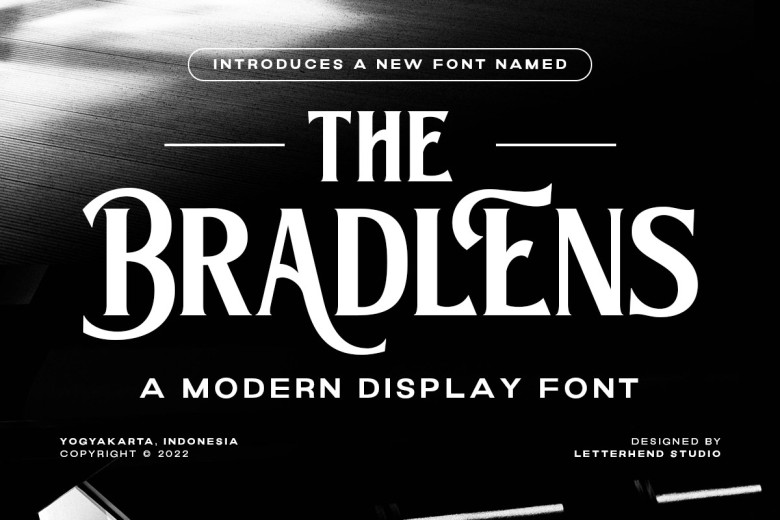
The Bradlens Font
Bradlens is a modern sophisticated display font. This typeface is crafted carefully to make sure it is highest quality and luxury feel. This modern theme or vintage looks very suitable for designing a logo, headline, tittle, formal forms such as invitations, labels, logos, magazines, books, greeting / wedding cards, packaging, fashion, make up, stationery, novels, labels or any type of advertising purpose.